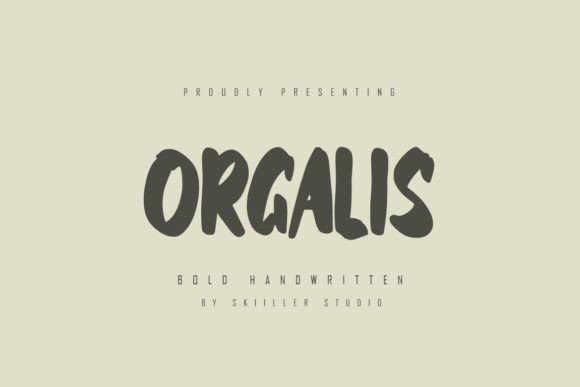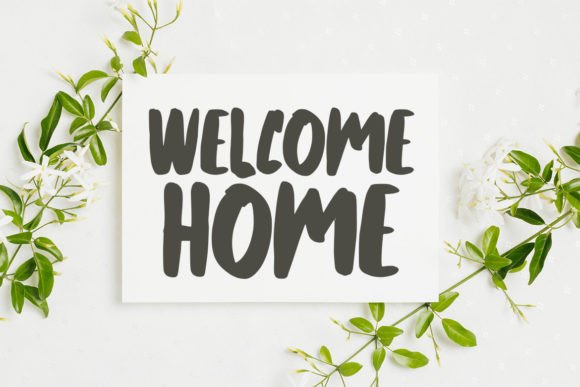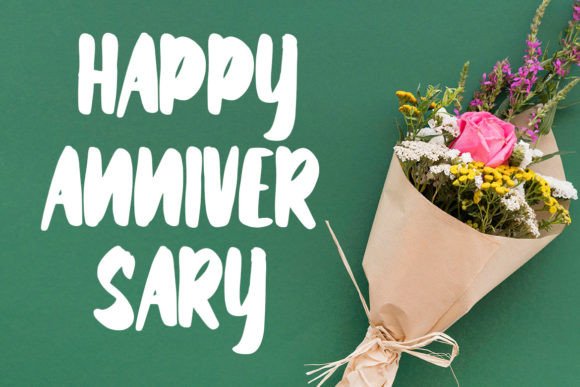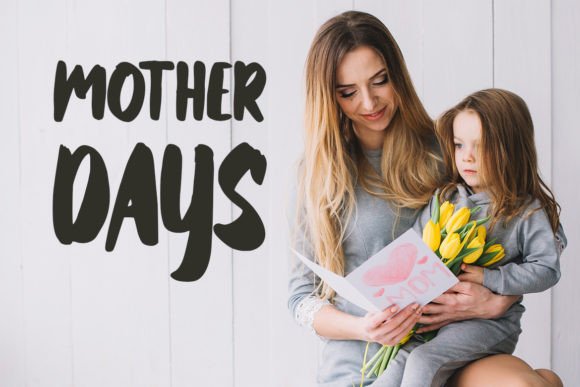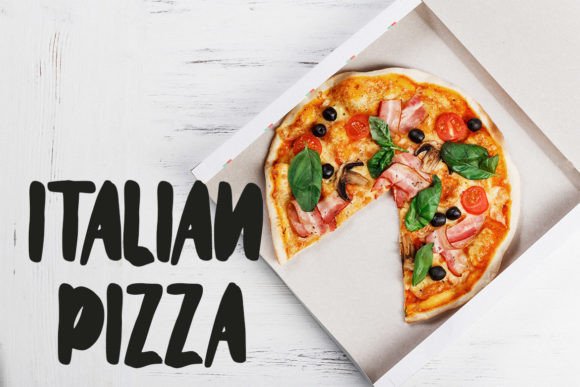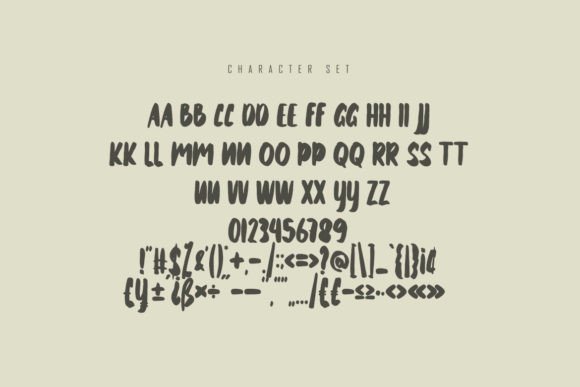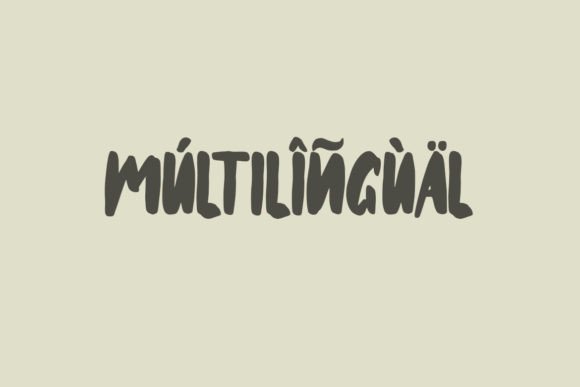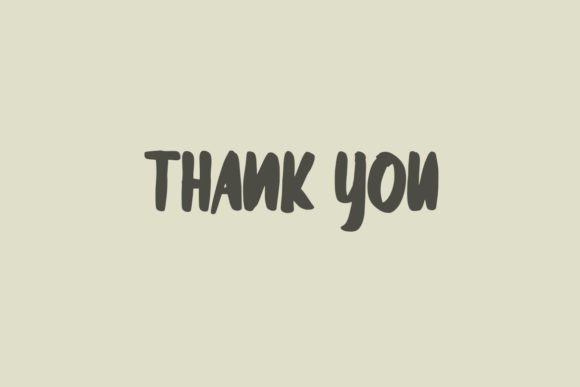
Orgalis Font
About Orgalis Font
Introducing Orgalis, a modern and brushed handwritten font crafted to infuse your headlines and logotype projects with a stylish touch. This font reads as strong, confident, and dynamic, adding tons of urban character to your designs.
The essence of Orgalis lies in its modern and brushed design. The brush strokes create a dynamic and energetic feel, making it well-suited for projects that require a bold and stylish aesthetic.
For headlines, Orgalis becomes a powerful and attention-grabbing choice. The font’s strong and confident appearance ensures that your headlines make a bold statement, capturing the viewer’s attention with urban character.
In logotype projects, Orgalis brings a contemporary and stylish touch. Its brushed handwritten style adds a sense of authenticity and uniqueness to your brand identity, making it memorable and distinctive.
The font’s dynamic nature makes it suitable for a range of design projects where a strong and confident presence is desired. Whether you’re working on digital designs or print materials, Orgalis is crafted to make an impact.
In urban-themed designs, Orgalis shines with its brush-inspired strokes, adding an edgy and modern vibe. The font’s character can elevate your designs, giving them a street-smart and contemporary feel.
Orgalis is designed to be versatile and adaptable to various design contexts. Its strong and dynamic appearance makes it a valuable asset for creating visually striking and impactful projects.
In conclusion, Orgalis is a modern and brushed handwritten font that adds a stylish touch to your headlines and logotype projects. Choose Orgalis to infuse your designs with confidence, dynamism, and urban character, creating outcomes that make a strong and memorable impression.